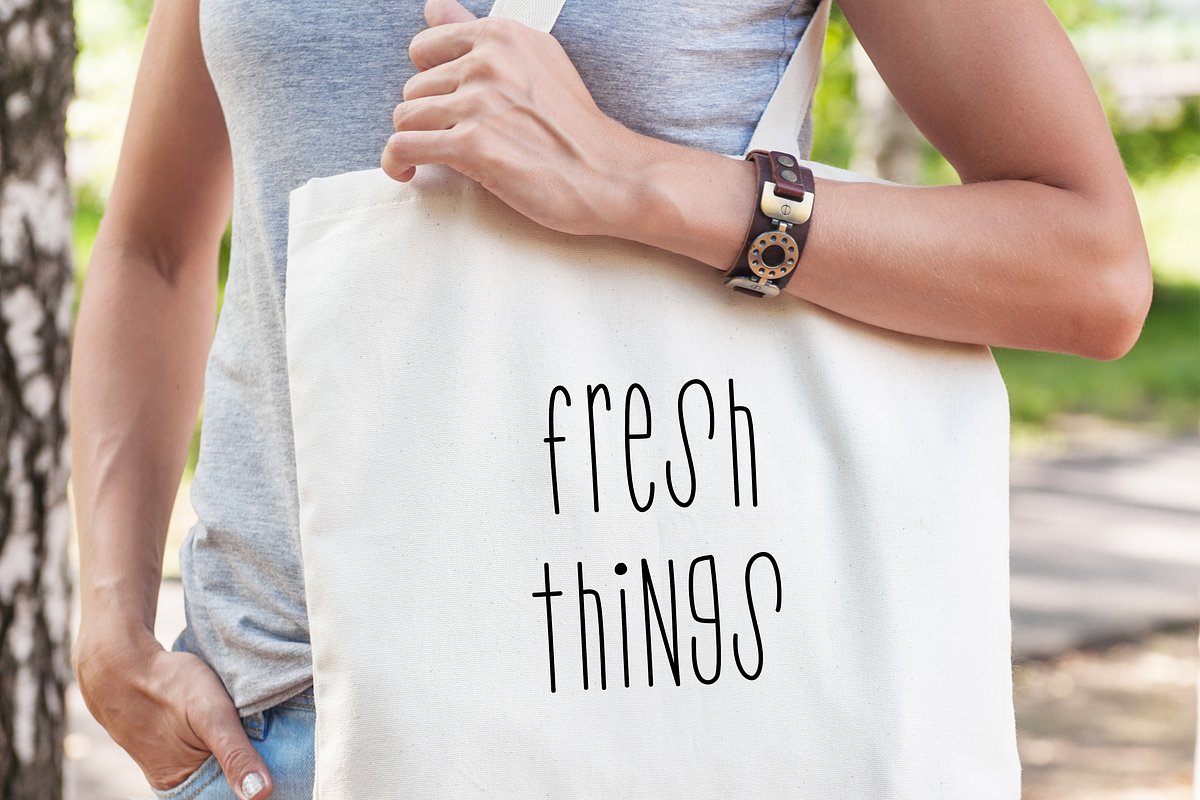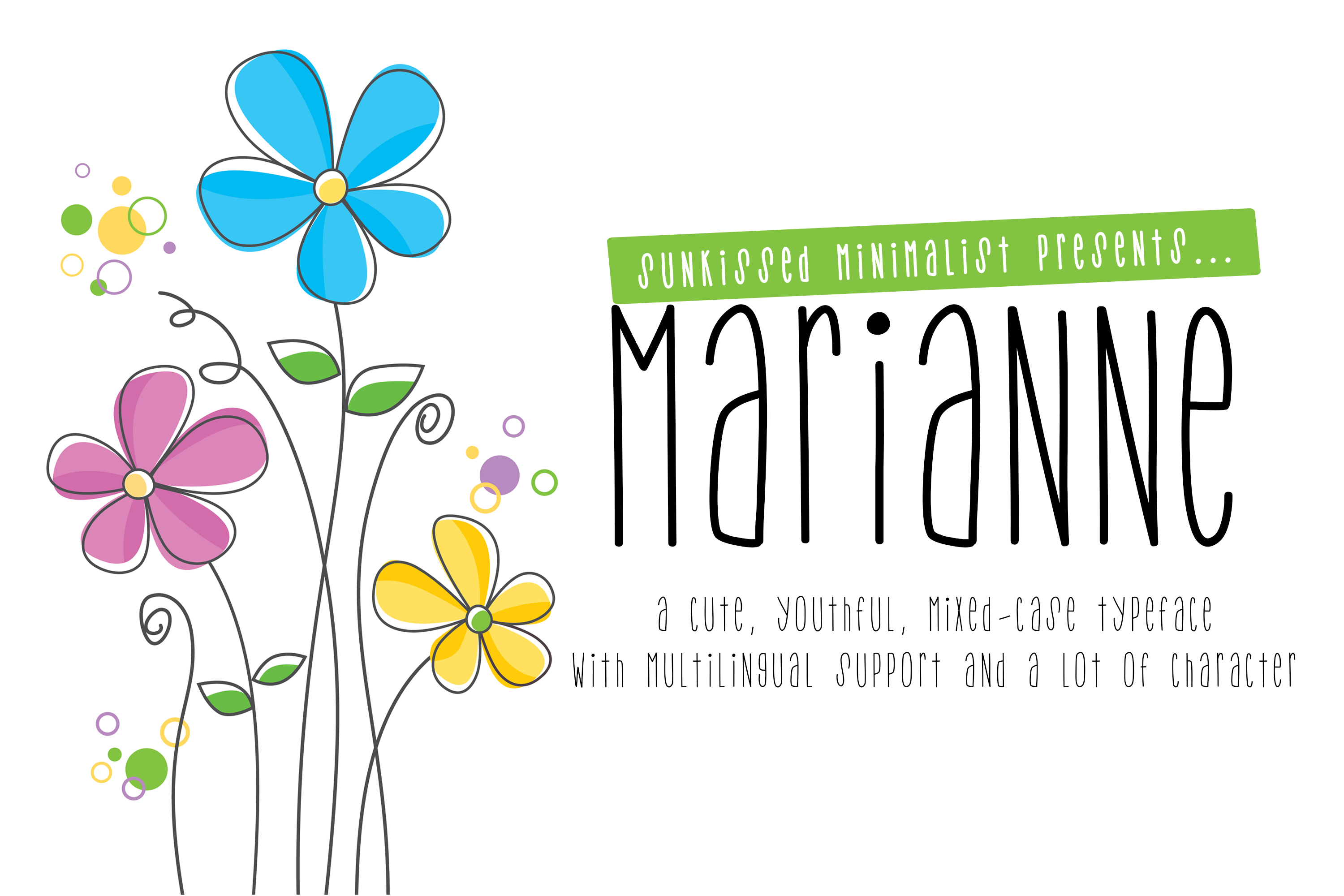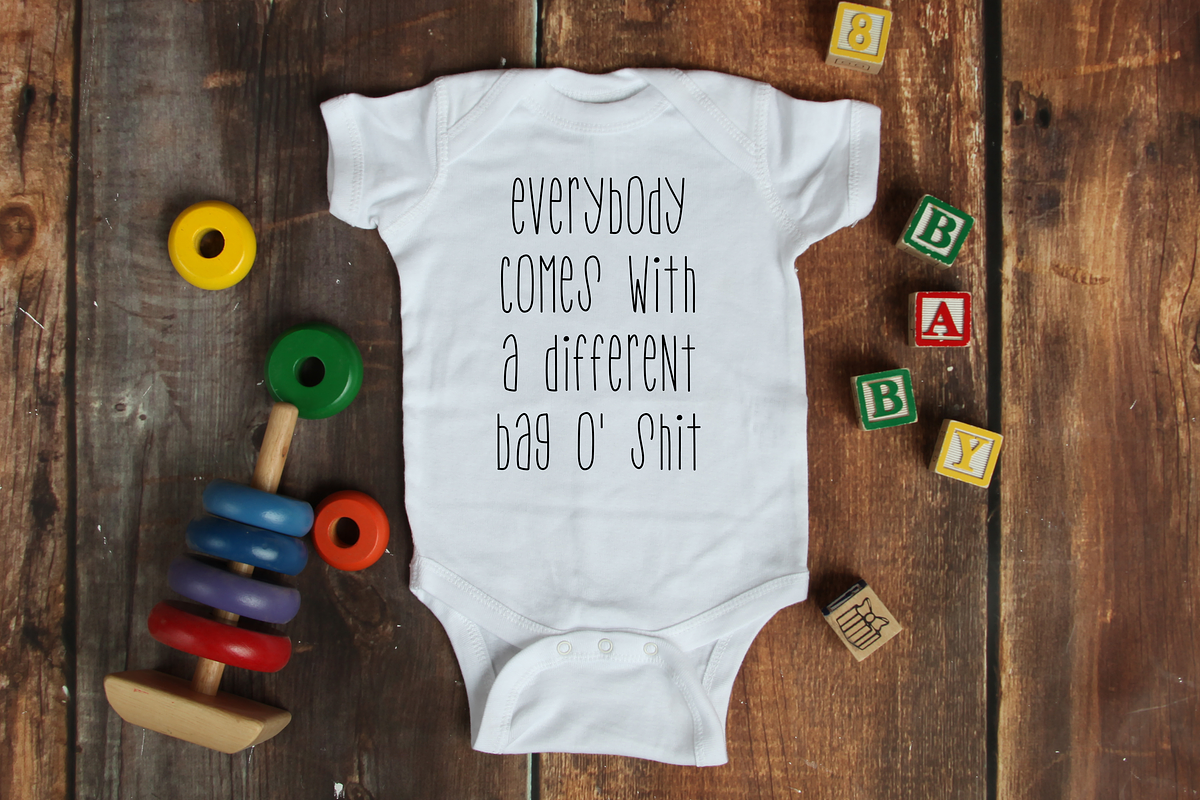
Marianne | A cute mixed-case font
Marianne is a cute, girly feminine font with multilingual support and mixed-case letters that is perfect for:
- greeting cards
- invitations
- posters
- t-shirt designs
- SVG Designs And more...
- Uppercase Characters
- Lowercase Characters